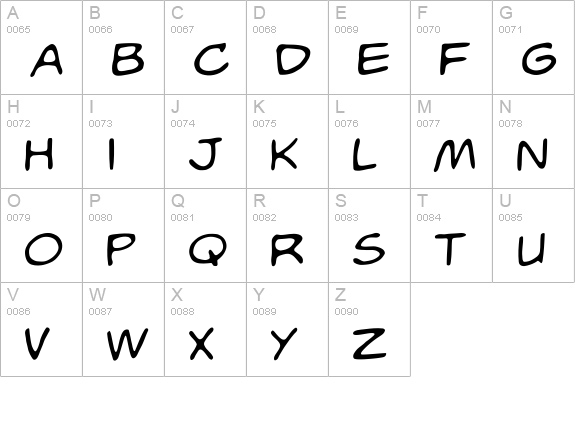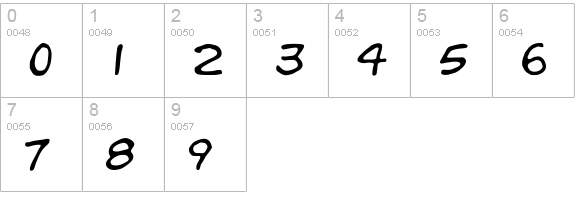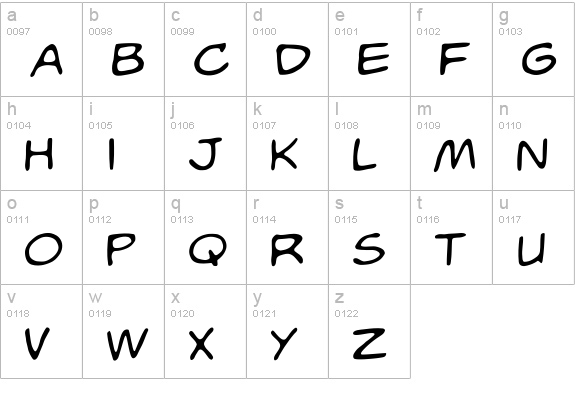
WhizBang-Roman Font Details
Introducing the mesmerizing WhizBang-Roman font, a true masterpiece in the world of typography. With its sleek and elegant design, this font effortlessly captures attention and adds a touch of sophistication to any project. The WhizBang-Roman font is the perfect balance between classic and contemporary, making it suitable for a wide range of applications. Featuring clean lines and graceful curves, this font exudes a sense of professionalism and style. Its versatility allows it to be used in various contexts, whether it's for designing logos, creating eye-catching headlines, or crafting elegant invitations. The WhizBang-Roman font is sure to make a lasting impression on any audience. But what sets the WhizBang-Roman font apart from the rest is that it is free! Yes, you read that right. This incredible font is freely available to download at FontsMarket.com. Now you can effortlessly enhance your designs without breaking the bank. Whether you're a professional designer or a creative enthusiast, the WhizBang-Roman font is a must-have in your collection. So why wait? Experience the sheer beauty and versatility of the WhizBang-Roman font today. Download it for free at FontsMarket.com and unlock the endless possibilities it offers. Elevate your designs to new heights with this remarkable font that combines elegance, style, and accessibility. Don't miss out on this incredible opportunity to enhance your creative projects with the WhizBang-Roman font.